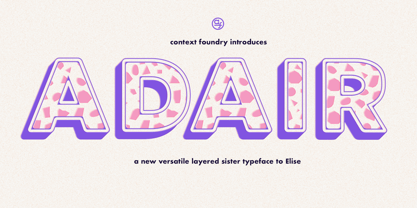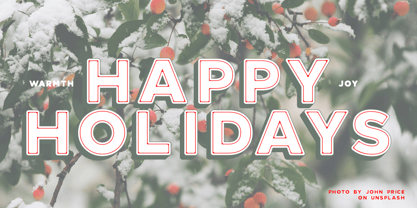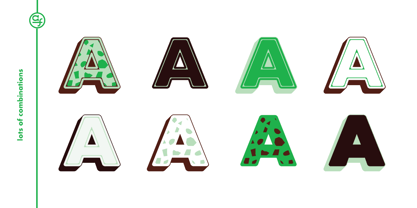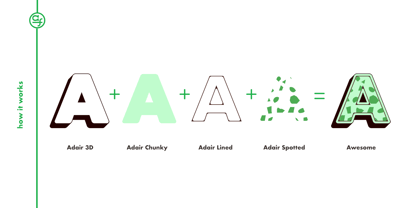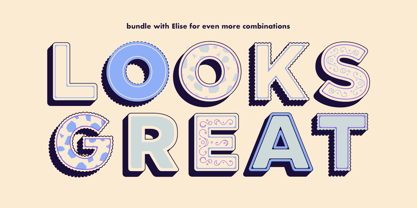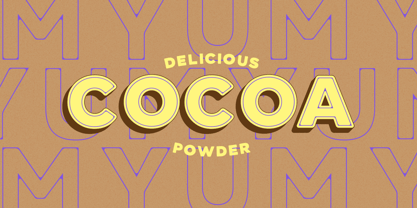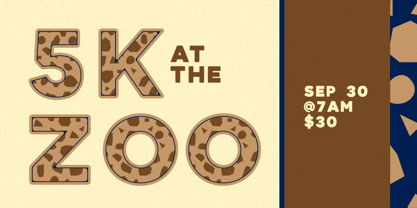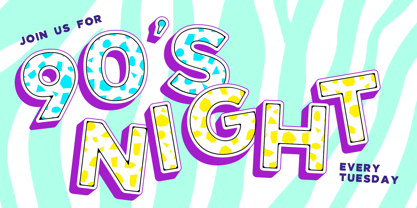
Adair
by Context
The Adair Font Family was designed by Alex Liebold and published by Context. Adair contains 5 styles and family package options. More about this family
Like her older sister, Adair is a layered display typeface, with a handful of layers but so many possibilities. This display face is best used BIG and with color. With the right mix of combinations and color you'll always find ways for Adair to make your project shine.
To effectively utilize this typeface, simply position your text block in your preferred design software, duplicate it, and overlay one block on top of the other. Adjust the new block to a distinct Adair layer and color, allowing the dynamic effects to emerge effortlessly. Bundle Adair with her sister typeface Elise for even more combinations.